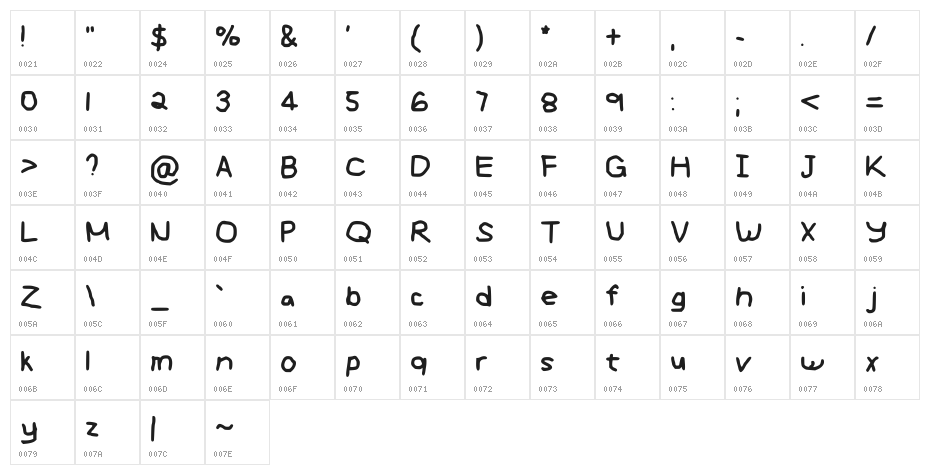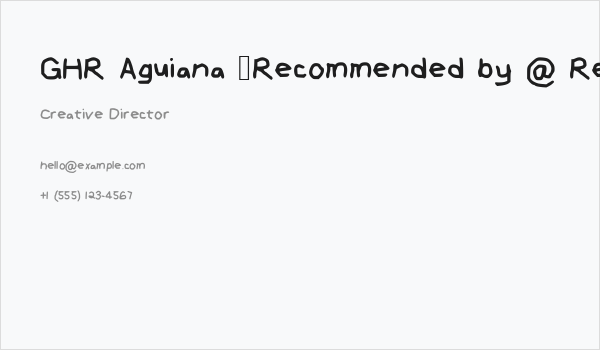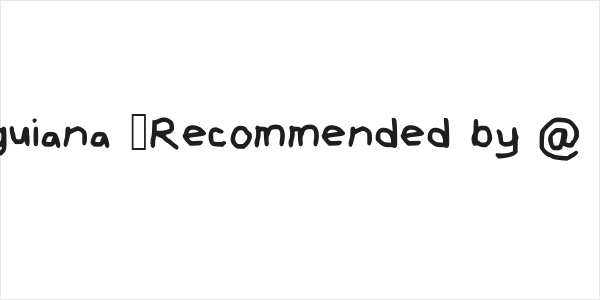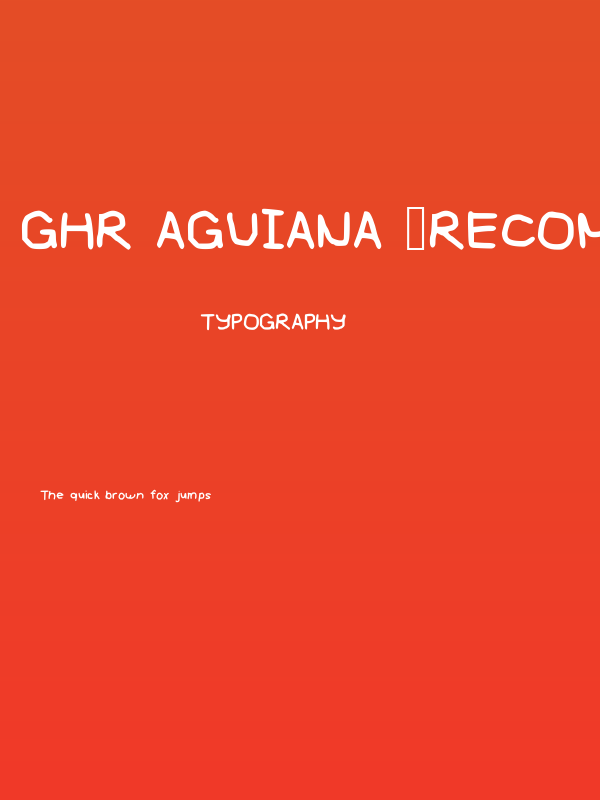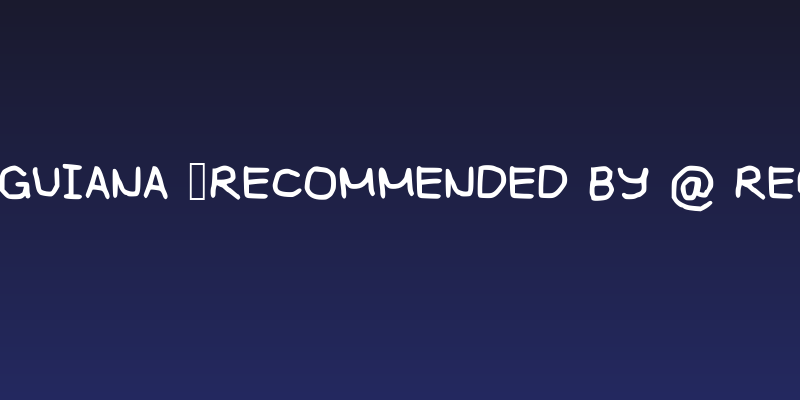
GHR Aguiana [Recommended by @ Regular Font
GHR Aguiana [Recommended by @ Regular Description
This font features a playful and informal handwritten style, characterized by its rounded and slightly irregular letterforms. The strokes are consistent in thickness, giving it a uniform appearance while maintaining a casual, friendly vibe. The uppercase letters are bold and stand out, while the lowercase letters maintain a similar weight, ensuring readability. The numerals are clear and distinct, matching the overall style of the alphabet. Special characters are included, adding versatility for various uses. This font is ideal for projects that require a personal touch, such as greeting cards, children's books, or creative branding.
| Proposed Projects | Ideal for greeting cards, children's books, and creative branding projects. |